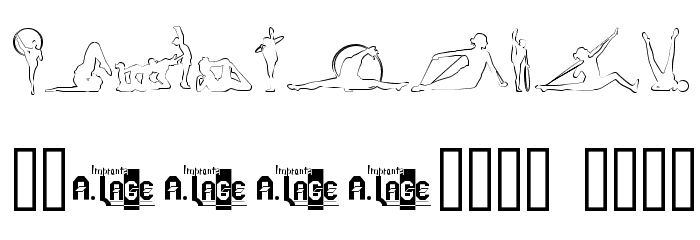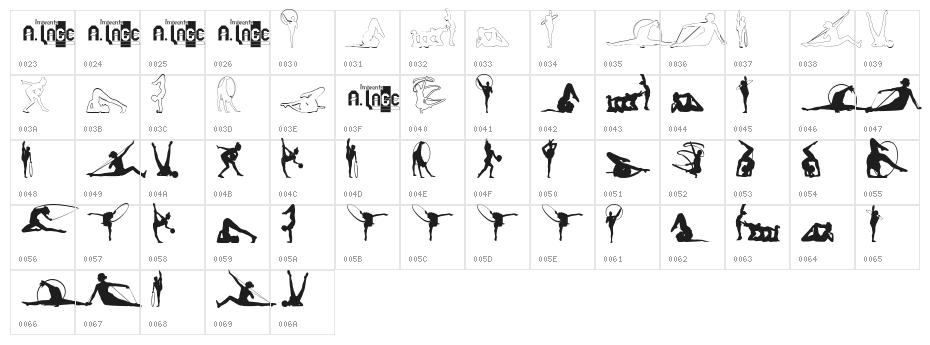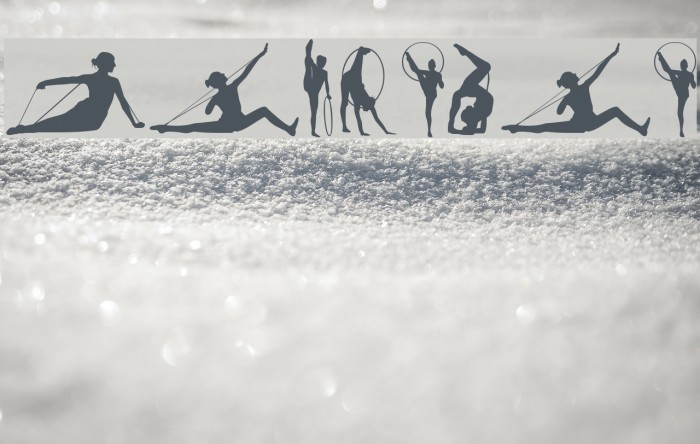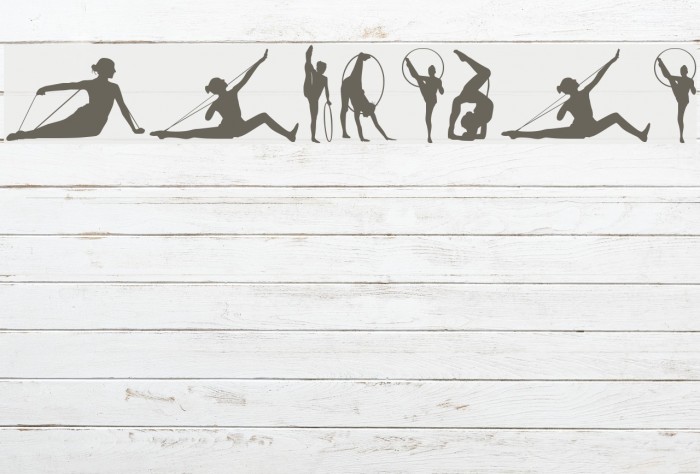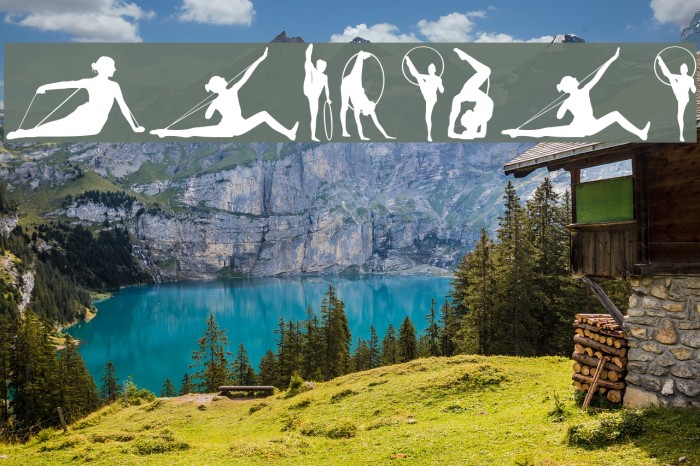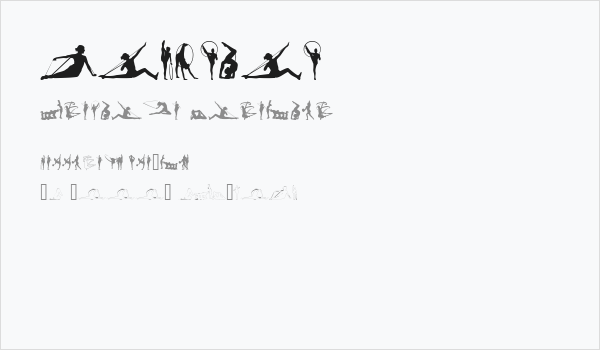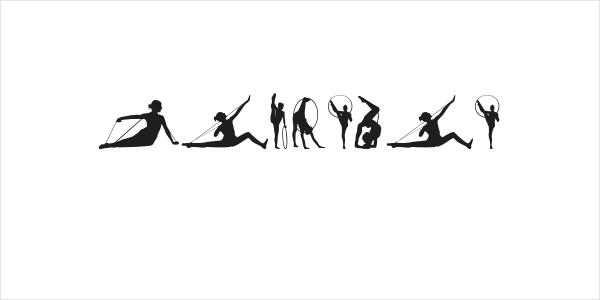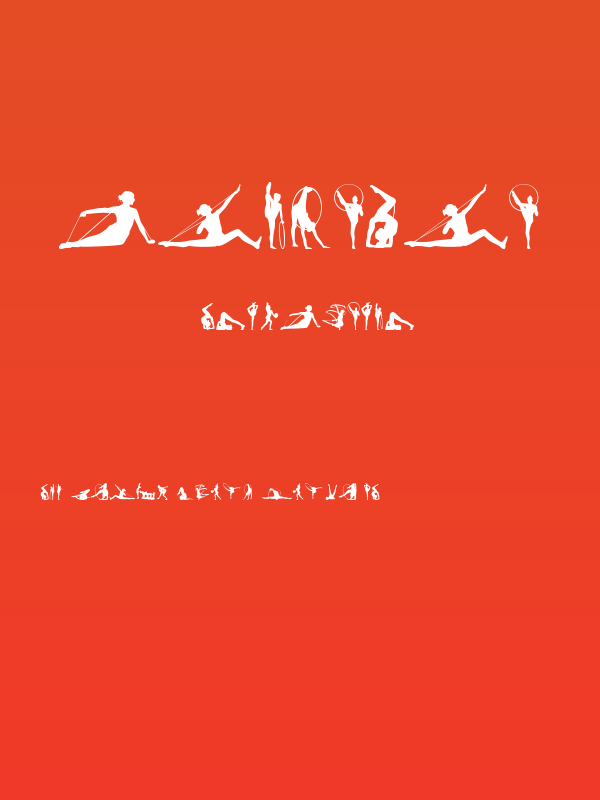
GIMNASIA Font
GIMNASIA Description
This font is a unique and creative design where each character is represented by a silhouette of a gymnast in various poses. The figures are dynamic and capture the essence of movement and flexibility, making it a visually engaging typeface. The characters are formed by the shapes of the gymnasts' bodies, which adds an artistic and playful element to the font. The overall appearance is decorative and thematic, suitable for projects that aim to convey energy, motion, and athleticism. The font is not suitable for body text due to its intricate design but can be effectively used in headlines or thematic displays.
| Use Case | Headlines, Thematic displays |
| Proposed Projects | Ideal for sports event posters, gymnastics-themed invitations, or any project requiring a dynamic and artistic touch. |